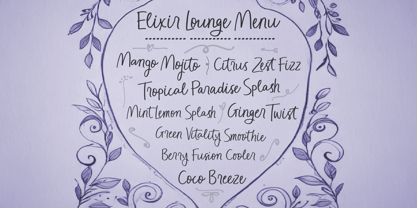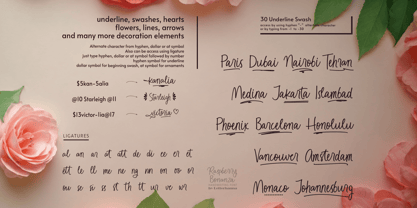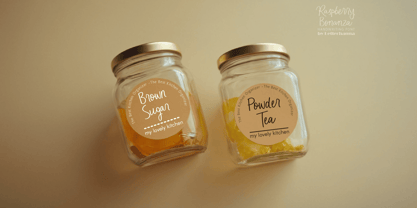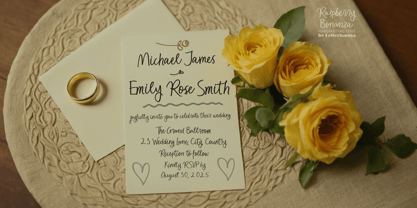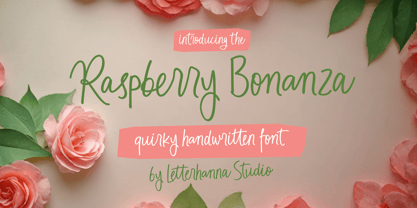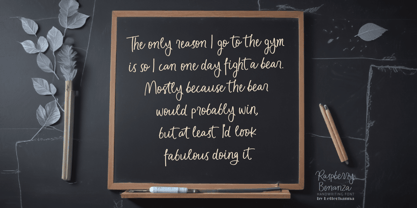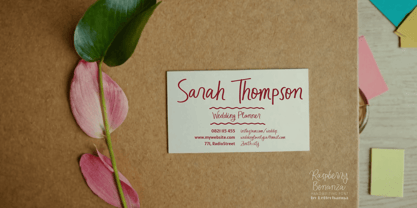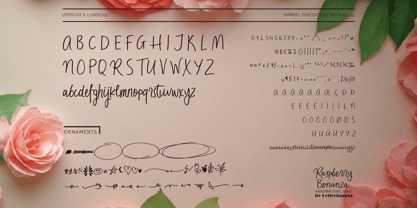
Raspberry Bonanza
by Letterhanna Studio
The Raspberry Bonanza Font Family was designed by Rinaldo Hasibuan and published by Letterhanna Studio. Raspberry Bonanza contains 1 styles. More about this family
Get ready for a burst of personality with Raspberry Bonanza! This fun and playful handwriting script font is packed with charm, featuring quirky letterforms and a unique, handcrafted feel. Perfect for branding, invitations, packaging, and creative projects that need a touch of whimsy. Whether you're designing a bold statement or a casual, artistic vibe, Raspberry Bonanza brings a fresh and lively energy to your work.
Designers: Rinaldo Hasibuan
Foundry: Letterhanna Studio